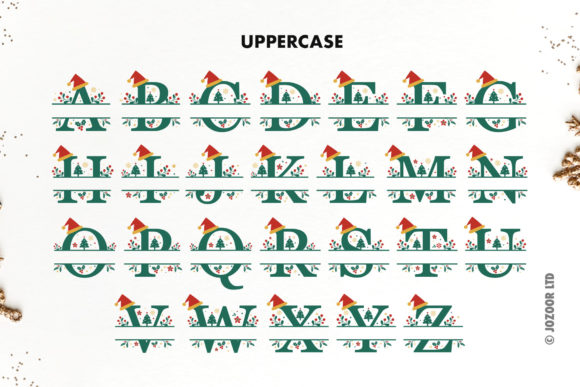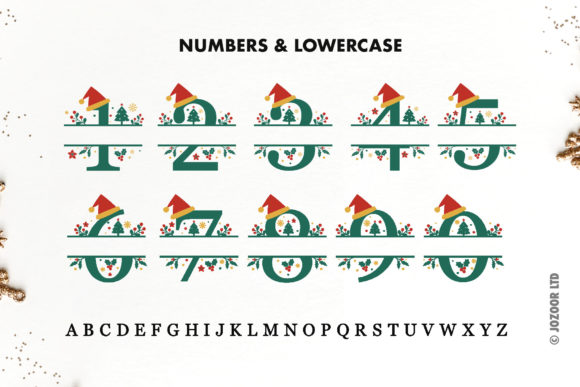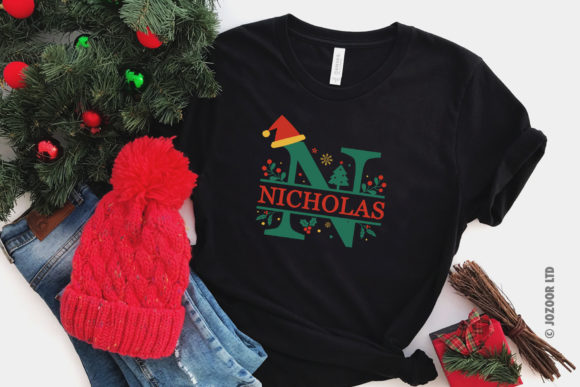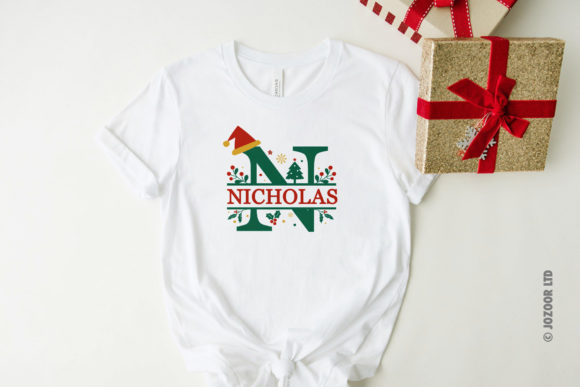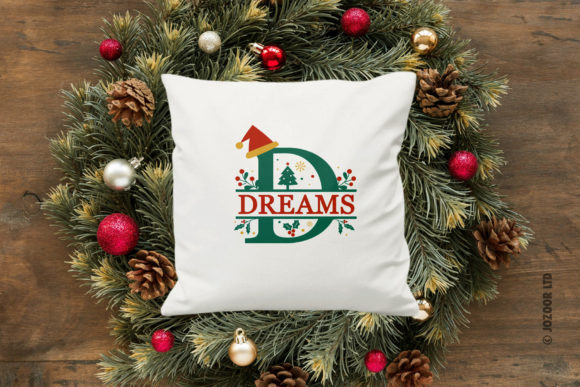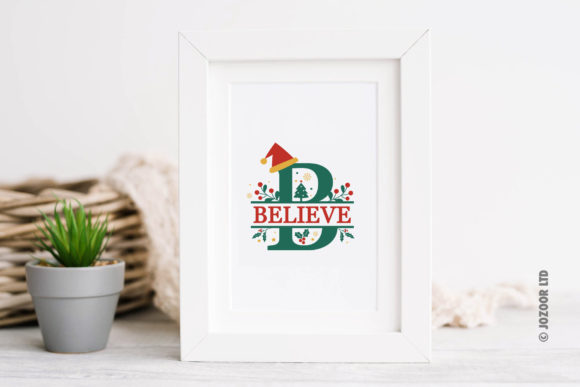
Introducing the Festive Christmas Split Monogram Font
Are you looking for a unique and adorable font to elevate your Christmas designs, crafts, and projects? Look no further than the Christmas Split Monogram Font! This charming decorative color font is perfect for adding a touch of holiday cheer to your creations. In this article, we’ll dive into the features and benefits of this fantastic font, and explore its endless possibilities for Christmas designs, shirts, crafts, farmhouse decor, SVG designs, craft projects, and more.
What is the Christmas Split Monogram Font?
The Christmas Split Monogram Font is a specially designed font that combines the elegance of traditional monograms with the playfulness of a festive holiday theme. This font features a split design, with each letter carefully crafted to create a beautiful, cohesive look that’s perfect for Christmas designs. The font comes in a variety of colors, allowing you to match it to your brand or project’s color scheme.
Key Features of the Christmas Split Monogram Font
- Cute and Decorative: The Christmas Split Monogram Font is designed to add a touch of whimsy and fun to your designs. Its playful, curly lines and shapes make it perfect for creating eye-catching Christmas designs.
- Color Font: Unlike traditional fonts, the Christmas Split Monogram Font comes in a range of colors, allowing you to add an extra pop of color to your designs.
- Multipurpose: The Christmas Split Monogram Font can be used for a wide range of projects, including Christmas designs, shirts, crafts, farmhouse decor, and more.
The Christmas Split Monogram Font offers endless possibilities for designers and crafters. Here are just a few ideas to get you started:
- Christmas Designs: Use the font to create stunning Christmas cards, invitations, and decorations.
- T-Shirts and Apparel: Add a festive touch to your holiday t-shirts, hoodies, and other apparel.
- Crafts: Use the font to create beautiful holiday crafts, such as ornaments, gift tags, and decorations.
- Farmhouse Decor: Add a touch of rustic charm to your farmhouse decor with the Christmas Split Monogram Font.
- SVG Designs: Use the font to create intricate SVG designs for cutting machines.
| Font Name | Christmas Split Monogram Font |
| Author | Jozoor |
The Christmas Split Monogram Font is a versatile and adorable font that’s perfect for adding a touch of holiday cheer to your designs, crafts, and projects. With its cute and decorative design, color font capabilities, and SVG compatibility, this font offers endless possibilities for designers and crafters. Whether you’re creating Christmas designs, shirts, crafts, or farmhouse decor, the Christmas Split Monogram Font is sure to become a favorite in your collection.